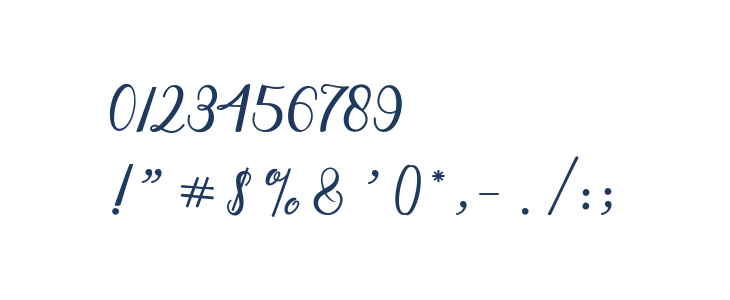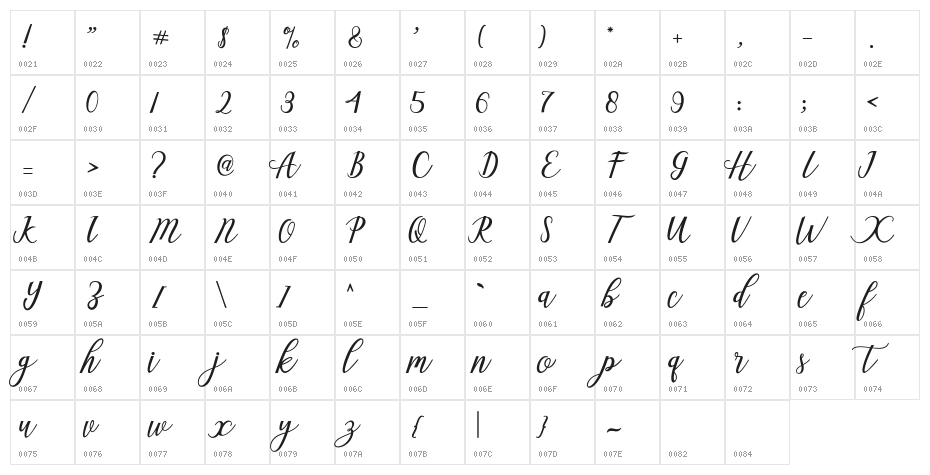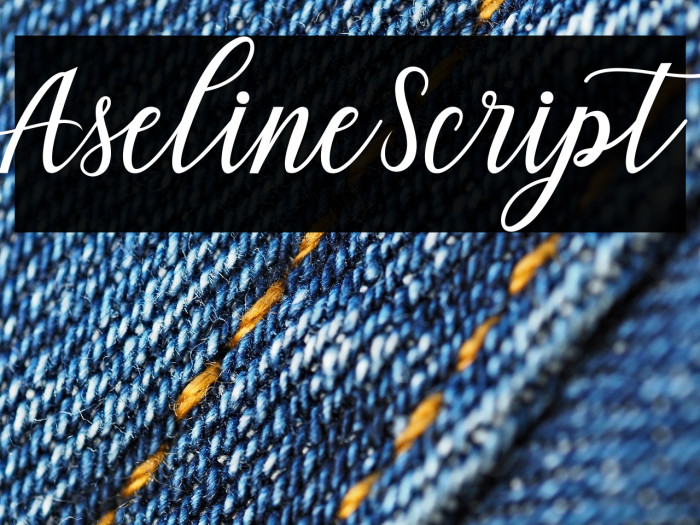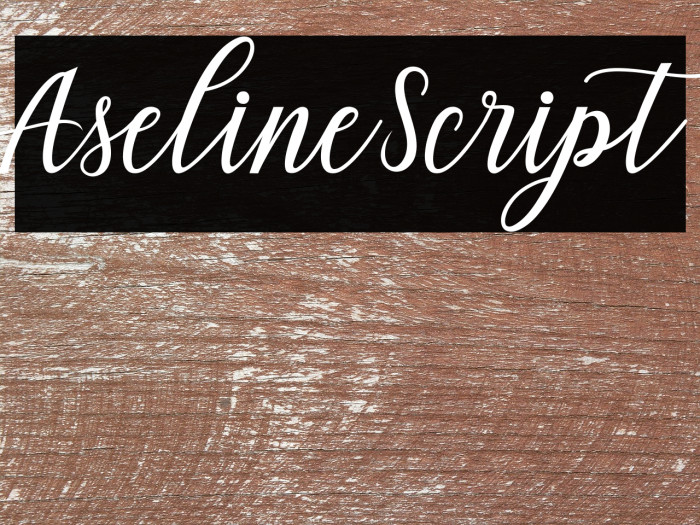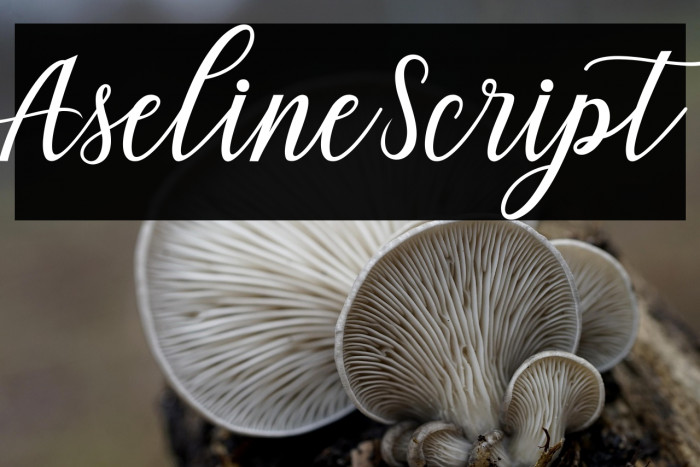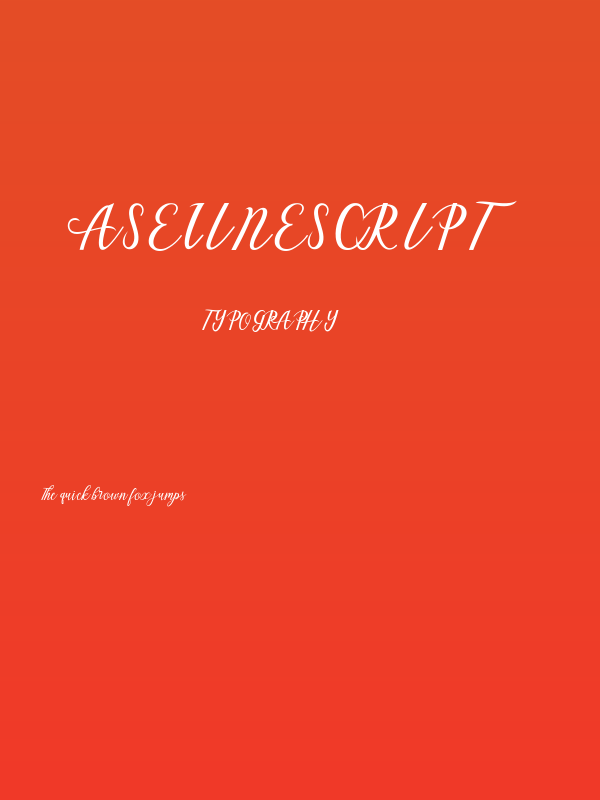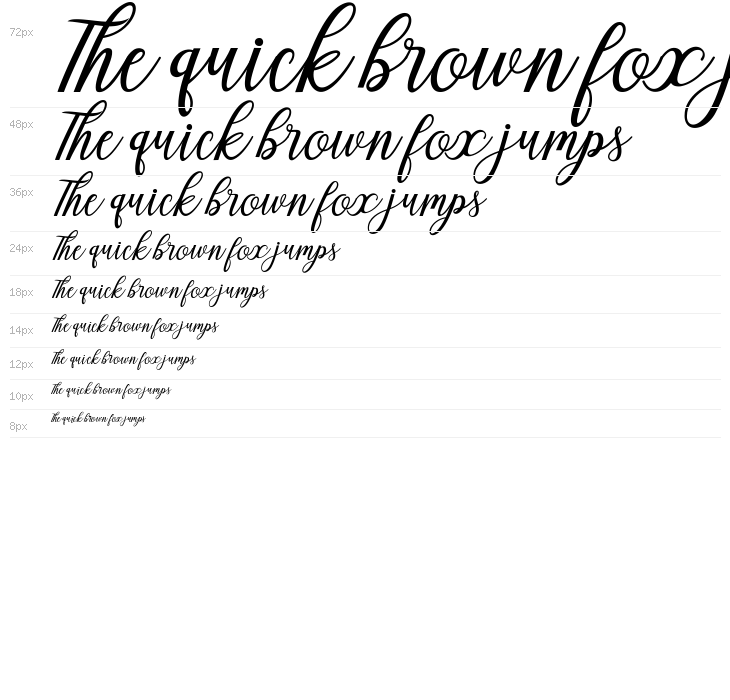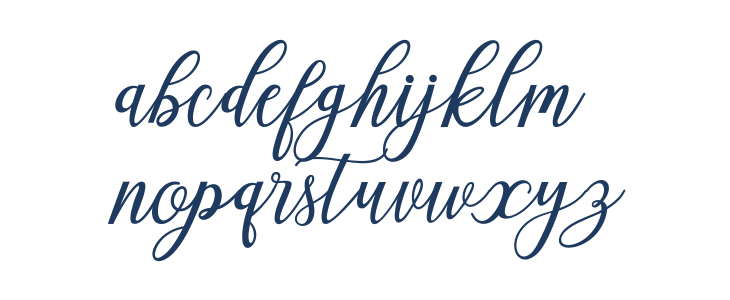
AselineScript Font
AselineScript Description
This elegant script font features a flowing, cursive style with a modern twist. The characters are interconnected, creating a seamless and fluid appearance. The uppercase letters are bold and slightly slanted, while the lowercase letters maintain a consistent rhythm with graceful loops and curves. The numerals and special characters are designed to complement the overall aesthetic, adding a touch of sophistication. The font's high contrast in stroke thickness enhances its readability and visual appeal, making it suitable for various creative applications.
| Use Case | Logos, Invitations, Branding |
| Proposed Projects | Ideal for wedding invitations, branding, logos, and elegant stationery designs. |